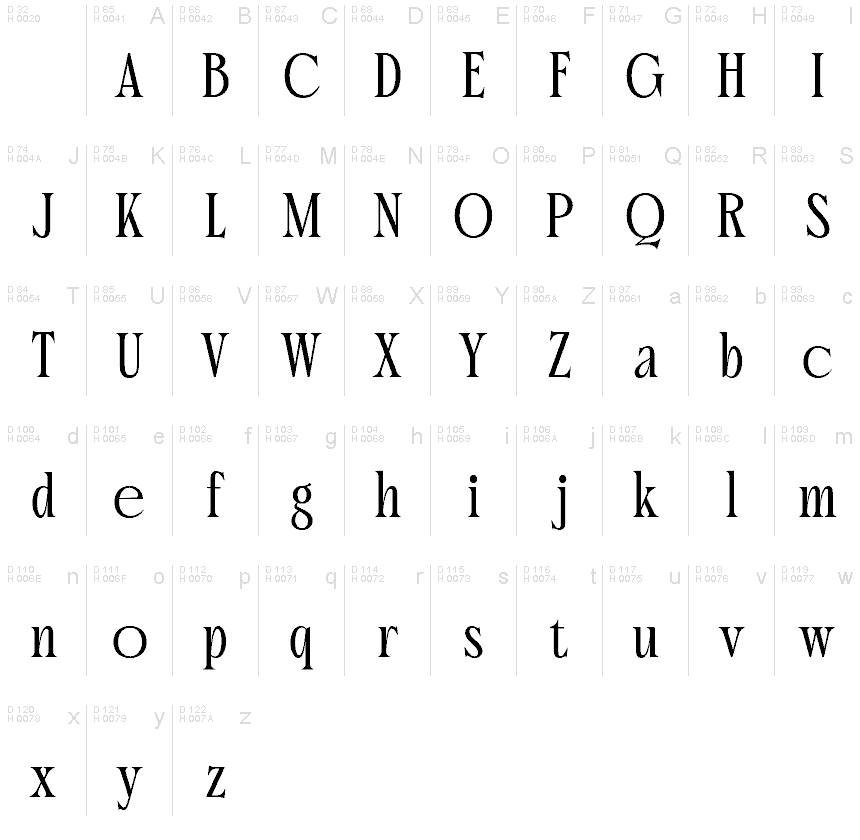
CS Henar Regular Demo
CS Henar font by Craft Supply Co. combines the finest attributes of traditional condensed fonts with a modern touch, resulting in a refined appearance that turns heads. This serif font is elegant and instantly recognizable with the various letterform shapes that add charm and character to each word typed. CS Henar showcases classic aesthetics while exhibiting its contemporary side.